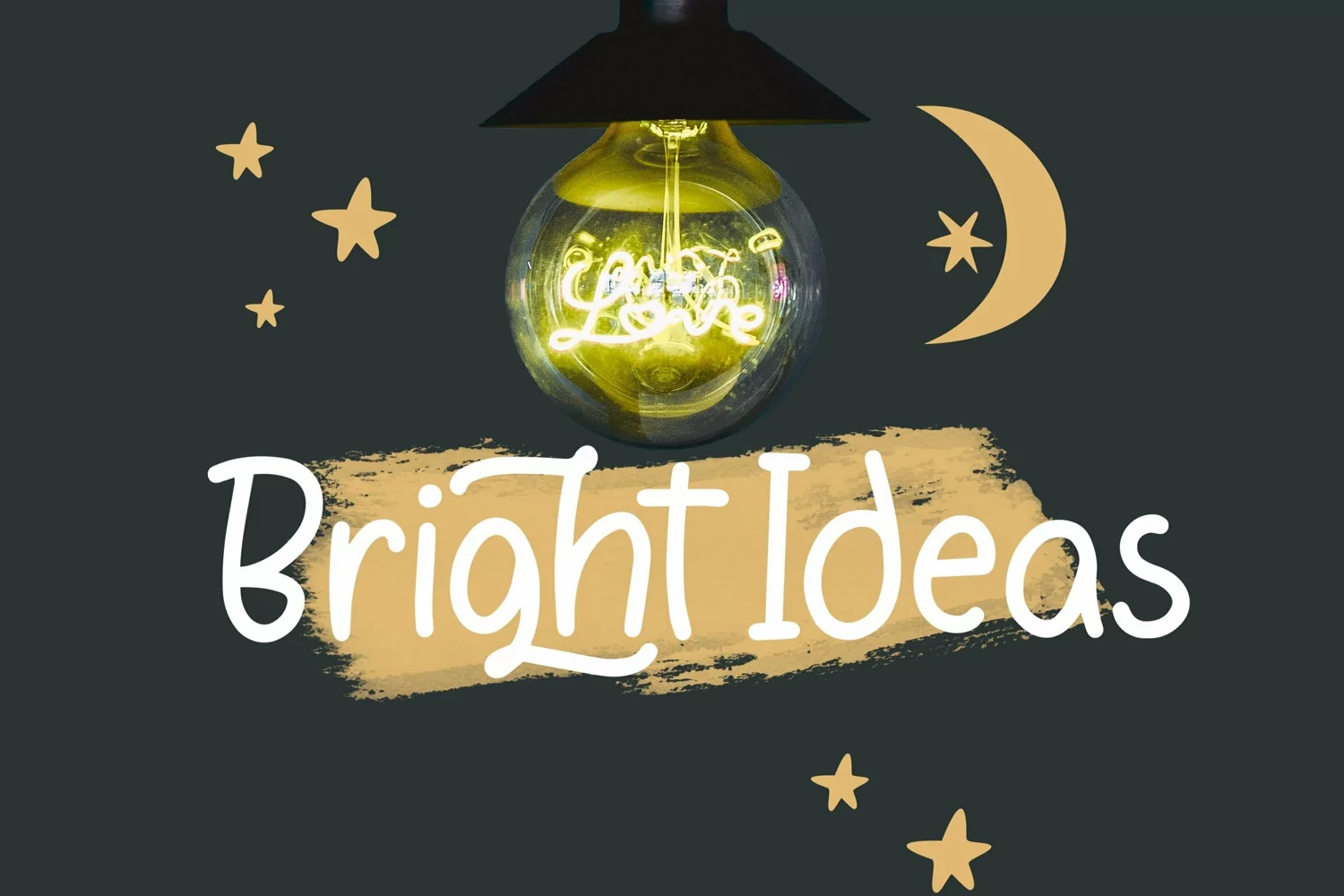
Dingball - Handrawn Monoline Font that contain lowercase, uppercase, symbol, and also support multi language. There’s a lot ligatures in this font. This Font also comes with ligatures, alternates and many more. this font suitable for fashion, branding, catalog and other design what you want.